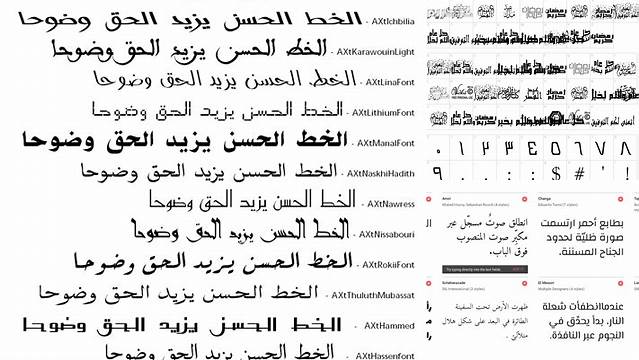
Why You Need Arabic Fonts for Word on Mac
Downloading Arabic fonts for Word on your Mac is essential if you're working with the Arabic language. Standard fonts on your Mac, while great, don't always include the complete character sets or the specific stylistic features needed for Arabic. Think about it: Arabic script is more than just letters; it's a flowing, connected form of writing. A well-designed Arabic font accounts for this, ensuring that the letters connect correctly and the overall appearance is pleasing to the eye. Without the right fonts, your Arabic text might look fragmented, with incorrect ligatures (the connecting parts of letters), and generally unprofessional. This can be a real problem if you're creating documents for academic purposes, business communications, or even personal projects like greeting cards or invitations. Furthermore, using specialized Arabic fonts can bring an authentic touch to your documents, which makes your content more engaging and easily readable. So, getting the right Arabic fonts is about more than just typing in Arabic; it’s about presenting your work with style and accuracy. Imagine creating stunning presentations, reports, or even just sending emails that capture the essence of the Arabic language and culture. Also, depending on your specific needs, having a variety of fonts also ensures that your text is visually appealing. Different fonts can create different moods, and the best way to express your ideas is through the right fonts for the context. The ability to render Arabic text correctly also enhances the readability of your documents, leading to better communication, no matter the purpose. When you prioritize the appropriate Arabic fonts, you guarantee your audience receives your message without any formatting issues.
Common Issues with Missing Arabic Fonts
Not having the right Arabic fonts can lead to a bunch of problems. The most common issue is garbled text or the dreaded “boxes” where the Arabic letters should be. This happens when your Mac or Word can't find a font that supports the Arabic characters. Another problem is incorrect letter connections. Arabic letters change their shape depending on their position in a word (beginning, middle, end). If the font doesn't support these variations, the letters might appear disconnected or distorted, which is a major headache. And, you might miss out on the stylistic features of the Arabic script, like the elegant calligraphic flourishes and the subtle differences between various font styles. When this happens, your documents just don’t look right. This can lead to a loss of credibility and professionalism, especially if you're working on official documents. Also, if you’re collaborating with others who have the right fonts installed and you don't, your formatting can completely fall apart when they open your document. This can make the editing process a nightmare and lead to misunderstandings. You might also face issues with font rendering on different devices or platforms. If you create a document with a specific Arabic font on your Mac, it might not look the same when opened on a Windows PC or a mobile device, unless the other device has the same font installed. If you want your Arabic text to display correctly across the board, you must install and use the appropriate fonts.